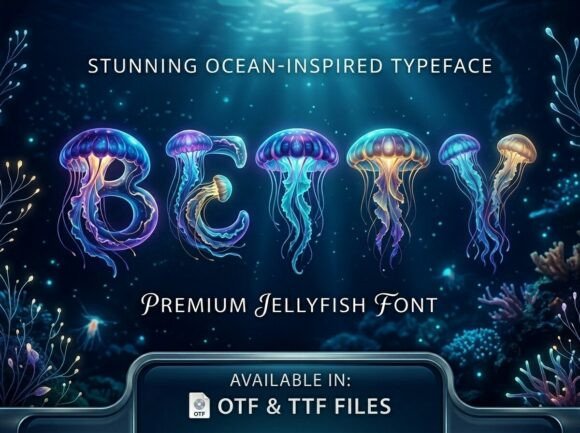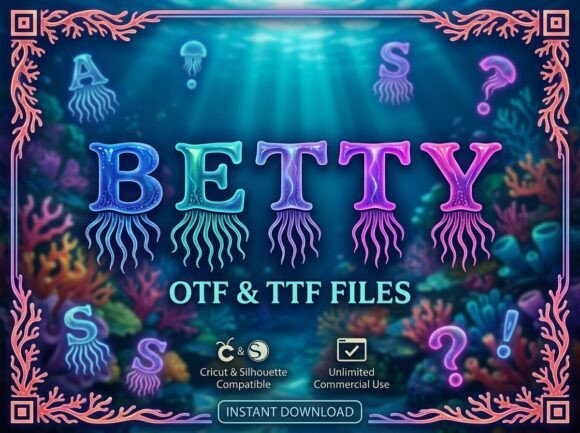
The Ultimate Design Game-Changer: Unleashing the Power of Betty Font
I’ll never forget the design project that had me stuck in a creative rut. I was working on a poster for a local art festival, and no matter how hard I tried, I just couldn’t find the right font to capture the essence of the event. That was until I stumbled upon Betty Font. This stunning decorative display font has been a game-changer for me, and I’m excited to share its awesomeness with you! 😊
Betty Font: A Designer’s Dream Come True
Betty Font is a masterpiece of creative typography, designed to be the center of attention. With its unique artistic elements and strong visual personality, this font is perfect for creators who want to break away from the ordinary. Its intricate details and creative letterforms make it ideal for high-impact designs where the typography needs to do the talking.
What I Love About Betty Font ✨
- ✅ Unique and artistic letterforms that add a touch of elegance to any design
- ✅ Intricate details that make it perfect for high-impact designs
- ✅ Versatile enough for bold headlines, artistic logos, and creative packaging
- ✅ Maintains a professional and polished finish
A Few Quirks to Keep in Mind 🤔
- ⚠️ May not be suitable for body text due to its decorative nature
- ⚠️ Some characters may require manual kerning for optimal results
The Story Behind Betty Font
Betty Font was designed by a team of creatives who wanted to push the boundaries of traditional typography. Inspired by the art of hand-lettering and the world of fashion, they created a font that’s both elegant and bold. The result is a stunning decorative display font that’s perfect for designers, crafters, and creative hobbyists.
| What is Betty Font best used for? | Betty Font is perfect for high-impact designs, such as poster design, branding and logos, apparel and merch, social media, and packaging. |
| Is Betty Font suitable for body text? | No, Betty Font is a decorative display font and may not be suitable for body text due to its intricate details and artistic letterforms. |
| Is Betty Font easy to read? | Betty Font is designed to be attention-grabbing, but it may not be the most readable font for small text sizes or long blocks of text. |